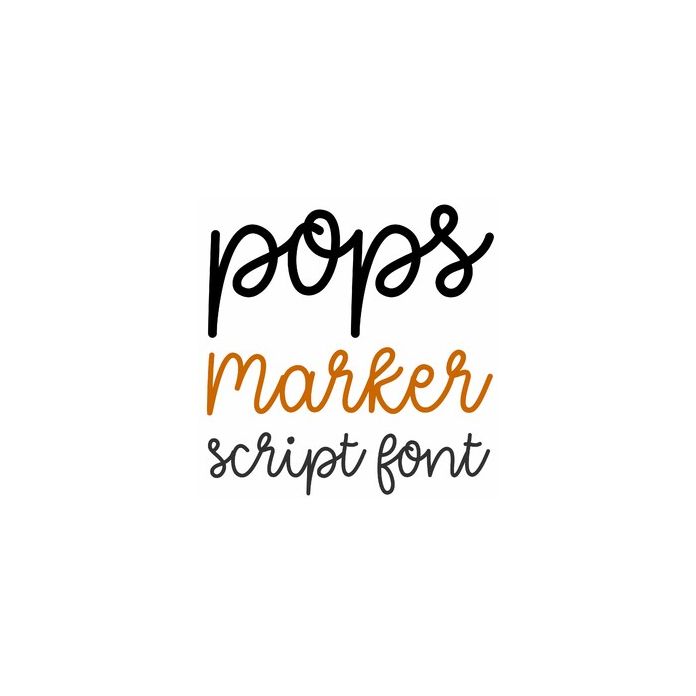
pops marker script font
Pops is a cute cursive handwriting marker script for cards, crafts, monograms, and projects. Includes alphabet, numbers, and punctuation.